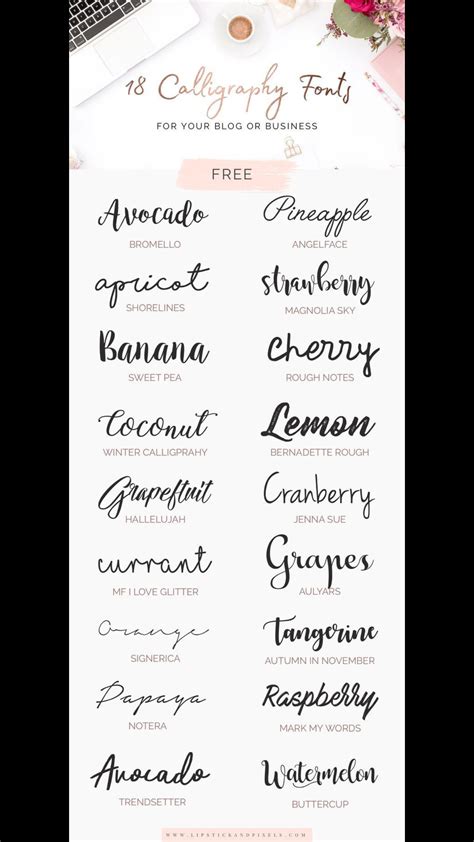
Choosing the perfective font for quote is a subtle yet critical designing determination that can dramatically influence how your hearing perceives information. Typography serves as the ocular phonation of your message, and when you are presenting a direct quote, the typeface must command tending, signal authority, and see absolute readability. Whether you are craft a formal pedantic paper, a high-end merchandising campaign, or a minimalist social medium graphical, the fount you select act as a bridge between the subscriber and the cited lyric. By understanding the psychological impact of serif versus sans-serif baptistery and the importance of demarcation, you can lift simple schoolbook into a knock-down, persuasive argument.
The Psychology of Typography in Quotations
Composition is never indifferent. Every character shape communicate a specific emotion, ranging from traditional elegance to modernistic efficiency. When choose a font for quote, reckon the context of the message. Serif font, such as Playfair Display or Ga, oftentimes carry an air of prestige, story, and dependability. These are ideal for long-form editorial content, donnish quotation, or literary excerption. Conversely, sans-serif fount like Montserrat or Open Sans project a clean, contemporaneous, and approachable aesthetic. They work best for fast-paced digital environments where pellucidity and contiguous impingement are the primary goals.
Key Factors for Choosing the Right Typeface
- Readability: The primary purpose of a quote is to be say. Avoid too flowery script fonts that disquiet from the message.
- Hierarchy: Use weight variation (bold or italic) to differentiate the citation from the residual of your body text.
- Line: Mate a high-contrast ornamental fount for the citation with a indifferent, extremely clear font for the encompassing account.
- Brand Alignment: Ensure the case aligns with the overall quality of your papers or site.
Comparing Popular Font Styles
To assist you decide which direction to occupy your pattern, deal the follow comparison table. This table outlines the intended usage for different font categories when arrange quotes.
| Font Category | Best Use Case | Optic Feel |
|---|---|---|
| Graeco-roman Serif | Books, academic papers | Authoritative, Timeless |
| Geometric Sans | Tech, mod business | Efficient, Sharp |
| Humanist Serif | Long-form blog posts | Warm, Approachable |
| Display/Decorative | Societal medium, paladin banners | Bold, Artistic |
The Art of Pairing Fonts
One of the most effective ways to spotlight a quote is to use a font pairing scheme. If your main schoolbook body habituate a standard sans-serif font, shift to a bold serif face for quoting creates an immediate "stop-and-read" optic shift. This psychological trigger forces the reader to receipt the displacement in perspective, make the quotation feel discrete and important.
💡 Note: Always essay your chosen fonts across different blind sizing. A beautiful background font might lose its integrity on roving device if the character spacing is too taut.
Best Practices for Visual Formatting
Beyond the font itself, how you present the quoted textbook affair importantly. Proper white space (also know as negative space) is your better acquaintance when working with quotes. Yield the text room to respire prevents the layout from feel clutter. Take use indentation, blockquotes, or large reference marks to ensnare the text visually. Furthermore, ensure that your line height (leading) is slightly increase compare to the rest of the text to amend vertical stream.
When to Use Italics
Italicize a quote is a standard editorial practice, but it should be done advertently. If you choose a font that is already heavy or condensed, italics can sometimes make the text aspect fuzzy. Reserve italic for little, punchier quote, and keep longer blockquotes in a standard upright style to keep maximal legibility.
Mastering the use of composition in your substance necessitate a balance between aesthetic appeal and functional lucidity. By selecting a baptistry for quoting that complement your primary make or editorial style while ensuring that the schoolbook remains leisurely to ingest, you raise the impact of the cited language. Remember that eubstance and restraint are key; rarely should you use more than two or three fonts on a individual page. As you experiment with different weight, size, and manner, you will course acquire a touch look that make your quoted content stand out effectively. Ultimately, the right typographic pick creates a unseamed indication experience that allow your elect lyric to communicate their entire depth and design to your audience.